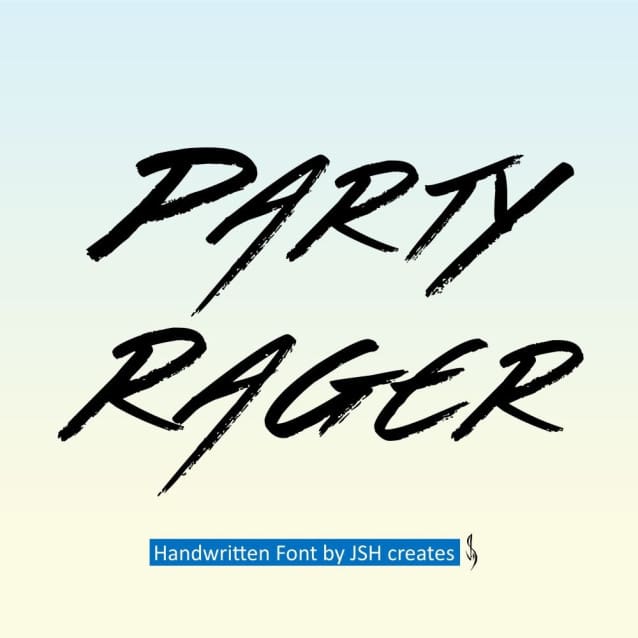
Party Rager Font
Party Rager Font, Cool handwritten font. Perfect for advertising and display purposes, including banners, book covers, shirts, posters, logos and much more!